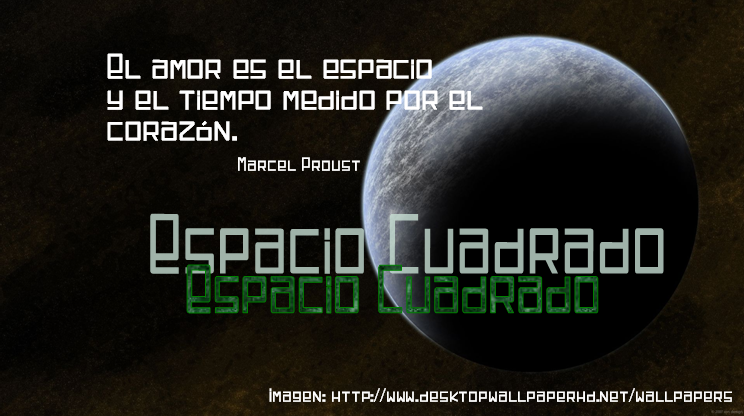
Introduction to Espacio Cuadrado Font
Have you ever found yourself staring at a blank canvas, struggling to bring your creative project to life? The blank page can be daunting, but the right design resource can make all the difference. That’s where Espacio Cuadrado Font comes in – a beautiful, high-quality Sans Serif font created by Jaime Rangel Castro.
With Espacio Cuadrado Font, designers can now access a versatile and modern font that’s perfect for any creative project. Its clean lines, open feel, and transparent background make it an ideal choice for anyone looking to add a touch of elegance to their work. Whether you’re a seasoned designer or just starting out, this font is a valuable addition to your toolkit, and the best part? It’s available for free download, making it a must-have resource for anyone looking to elevate their design game.
Key Features of Espacio Cuadrado Font
- High-quality design resource ideal for creative projects, offering a unique and stylish touch.
- Transparent background allows for seamless integration with any design, providing a clean and minimalist look.
- Designed with precision, Espacio Cuadrado Font boasts a crisp and clear appearance, suitable for both digital and print media.
- Perfect for designers and artists looking for a free, high-quality font to enhance their creative project.
- Unique characteristics include its geometric shape and clean lines, making it a great choice for modern and minimalist design projects.
Honest Review: Espacio Cuadrado Font
As a designer, I’m always on the lookout for high-quality design resources to elevate my creative projects. The Espacio Cuadrado Font caught my attention, and I decided to give it a try.
Here are some pros and cons of using this font:
- ✨ Unique and modern design aesthetic that’s perfect for creative projects
- ✨ Supports a transparent background, giving me the flexibility to use it on various backgrounds
- ⚠️ Limited character set, which may not be suitable for longer texts or complex designs
- ⚠️ Not as versatile as some other fonts, which may limit its use in different design contexts
Overall, I’m impressed with the Espacio Cuadrado Font, but it’s not a one-size-fits-all solution. If you’re looking for a modern, high-quality font for a specific design project, this might be the perfect choice. Just be aware of its limitations and consider your design needs before using it.
Espacio Cuadrado Font is a versatile design resource ideal for various creative projects. This high-quality font features a transparent background, making it perfect for overlaying on images or using as a standalone element.
Espacio Cuadrado Font is ideal for:
Creating eye-catching headlines and titles.
Designing social media graphics and ads.
Adding a touch of elegance to presentations and documents.